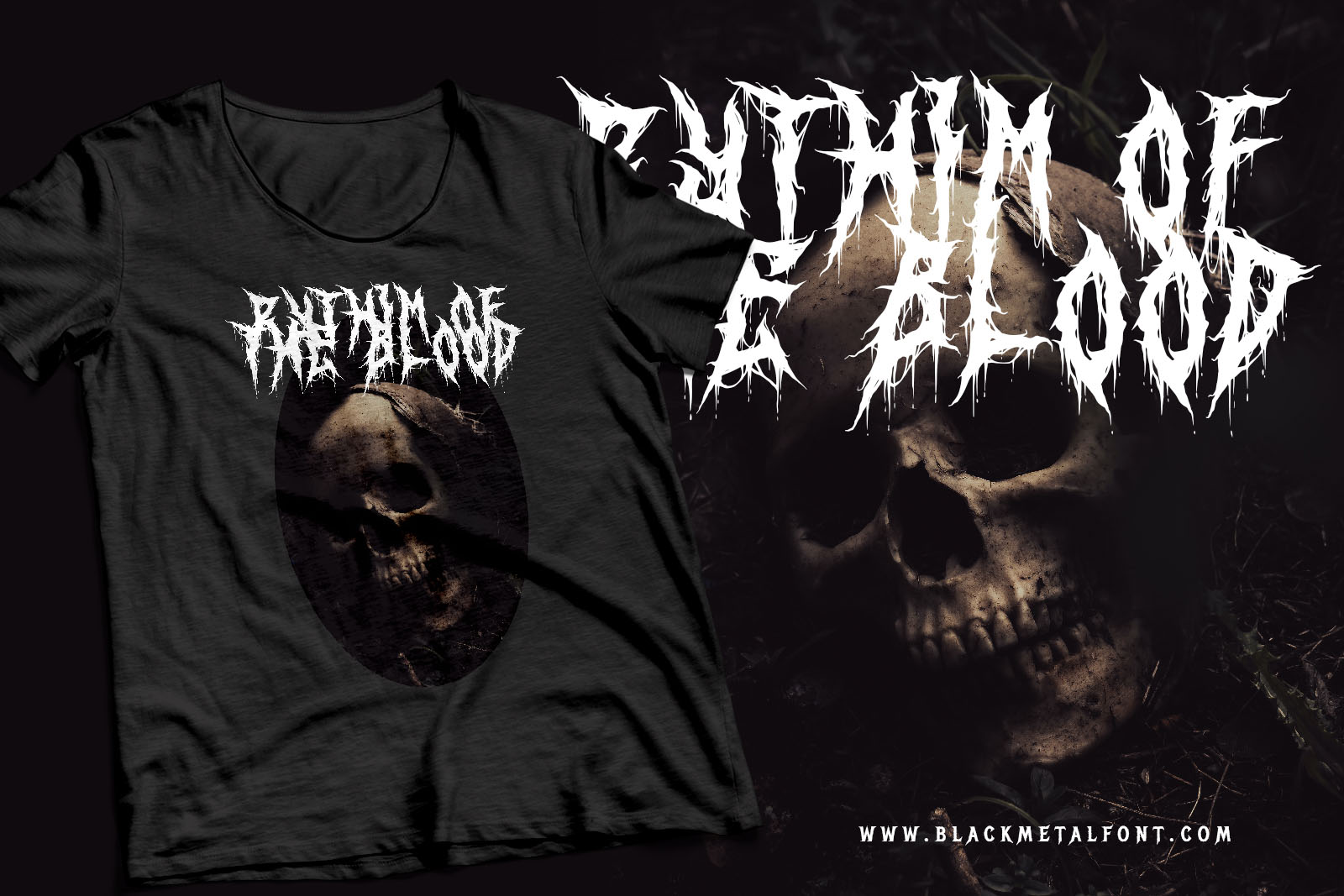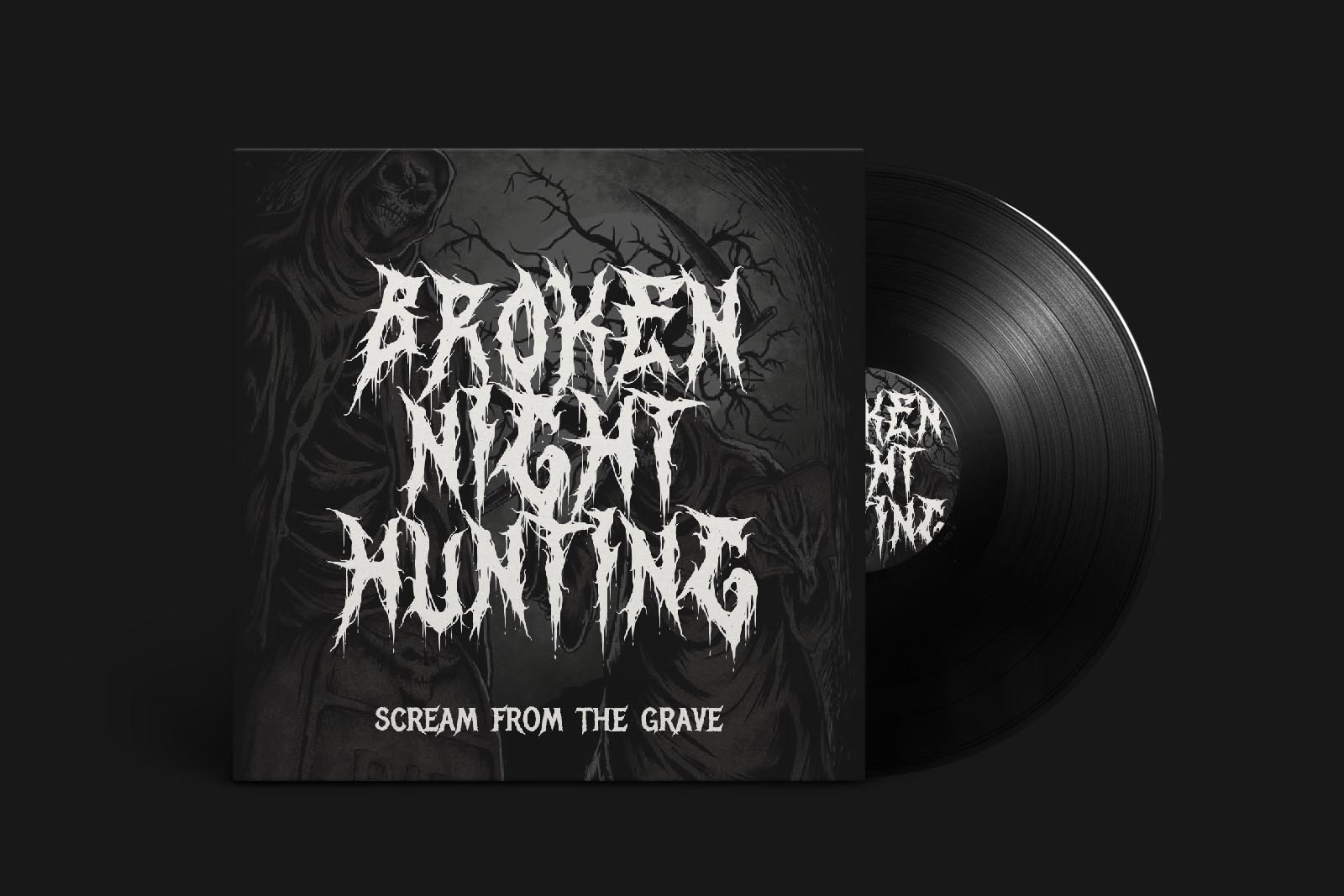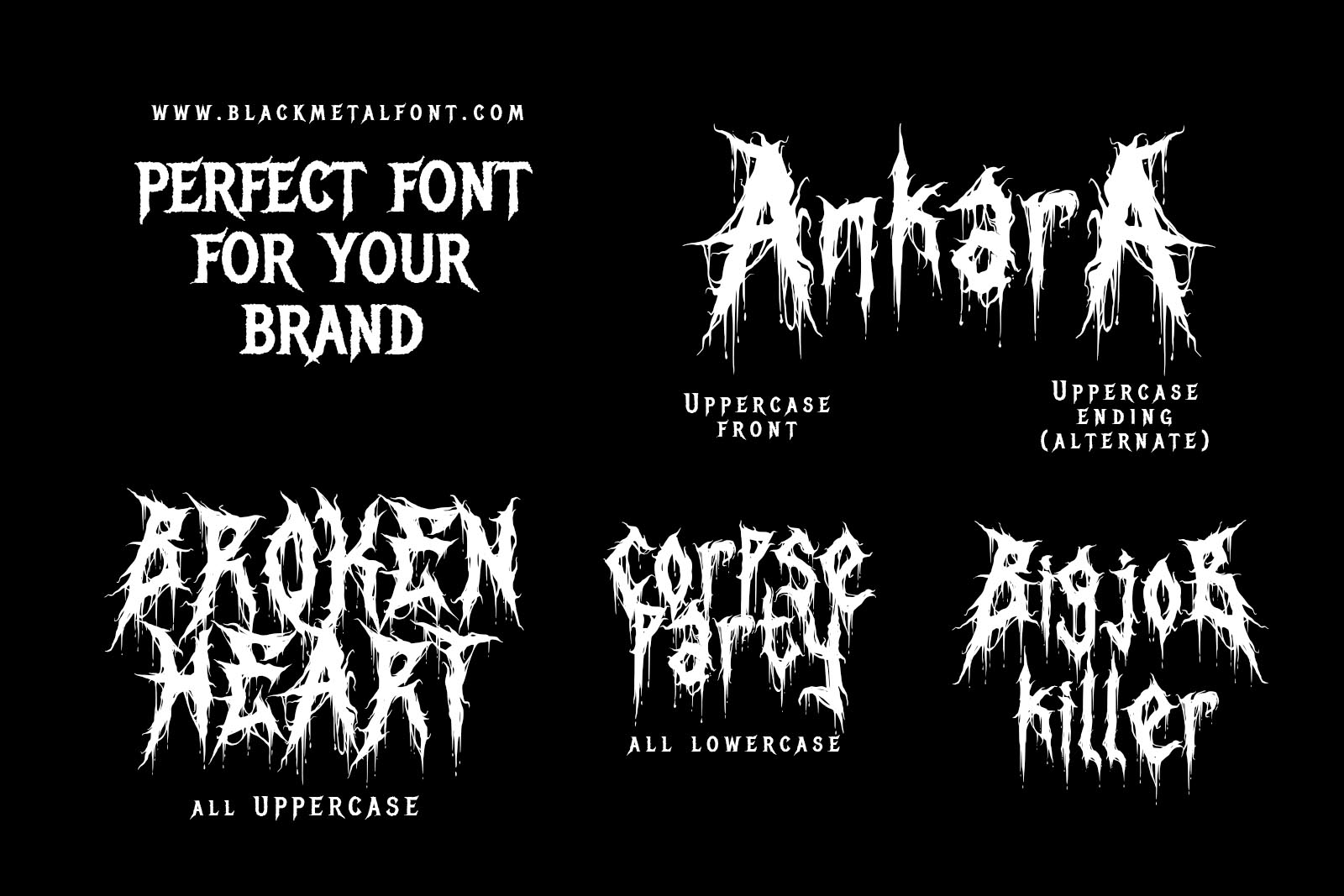
Death of Corpse
Death of Corpse is awesome black metal font. Comes with Uppercase and lowercase characters, and Uppercase alternates. This font is best seller font in black metal fans. Death of Corpse is awesome for your logo, your band, for merchandise, for clothing, and for your band concert